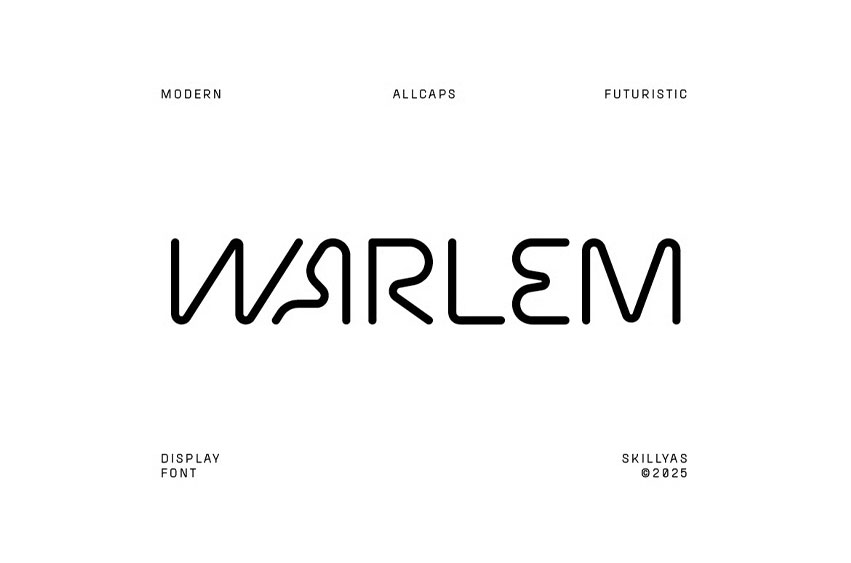
Warlem Font is a Brutalist, Futuristic Font Featuring Strong Geometric Shapes and Industrial-inspired Design. Perfect for tech branding, sci-fi visuals, posters, and digital artwork, it delivers a powerful, avant-garde aesthetic.
Warlem Font Preview